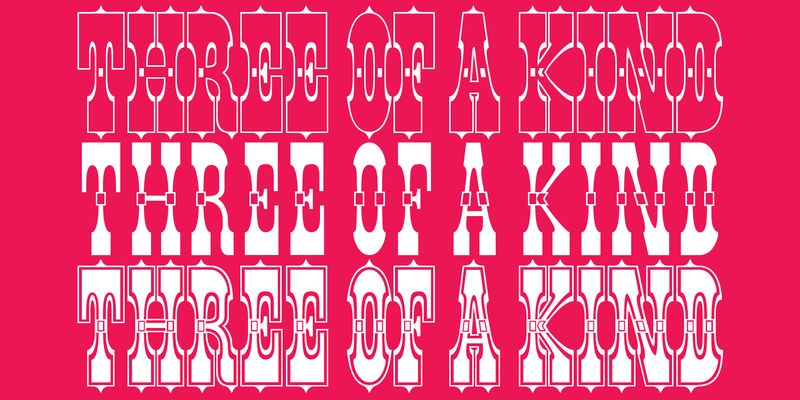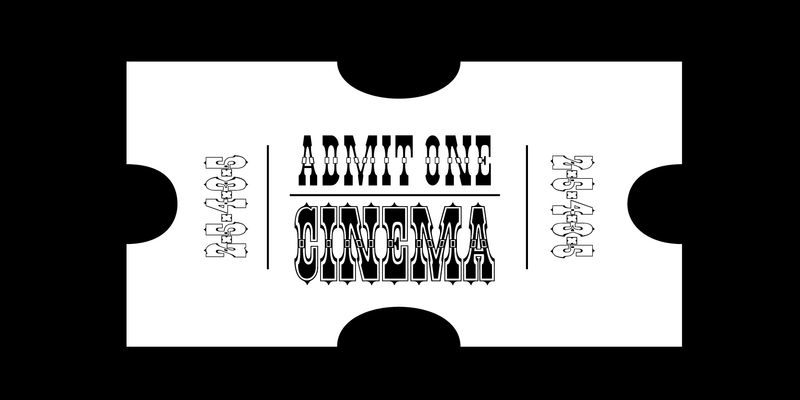
In 1877 Vanderburgh, Wells, and Company, a manufacturer of wood type, displayed an ornamented Celtic typeface that featured open rectilinear elements at the median of each letter. Adobe’s Pepperwood was patterned after this design and has been adapted to function as a chromatic typeface (“chromatic” or multicolored typefaces were first created by carefully registering and overprinting two or sometimes three versions of each letter in different colors to produce a flamboyant appearance). Pepperwood, released in 1994, has an alternate version of each letter which can be used for multiple color printing.